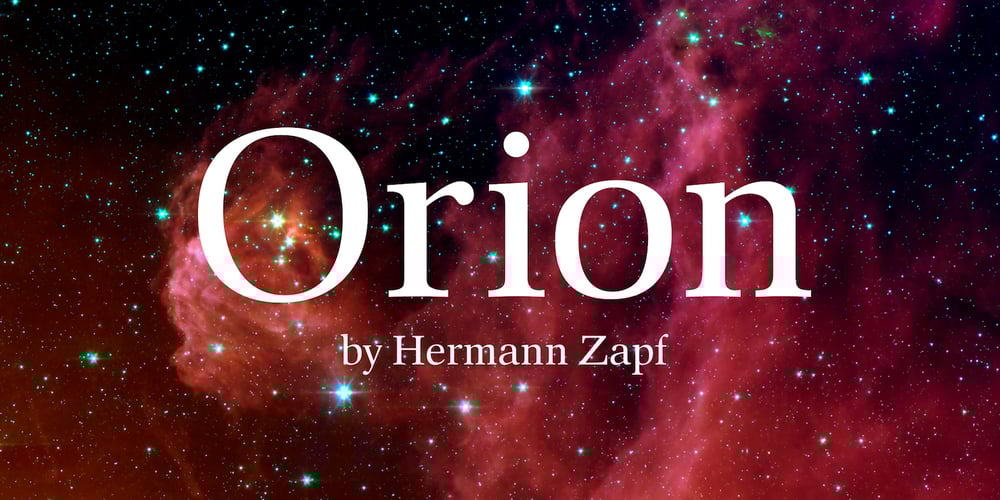
Orion
Orion font
Orion Font Family was designed by Hermann Zapf and published by Linotype. Orion contains 2 styles and family package options. Hermann Zapf made his first scetches for Orion in 1963. Zapf’s aim was to create a neutral textface which can be ideally used as a newspaper face. Its strokethickness and open letterforms also fits well for book and magazine production. The final two weights of Orion were released in 1974 for the Linofilm photocomposing machine.